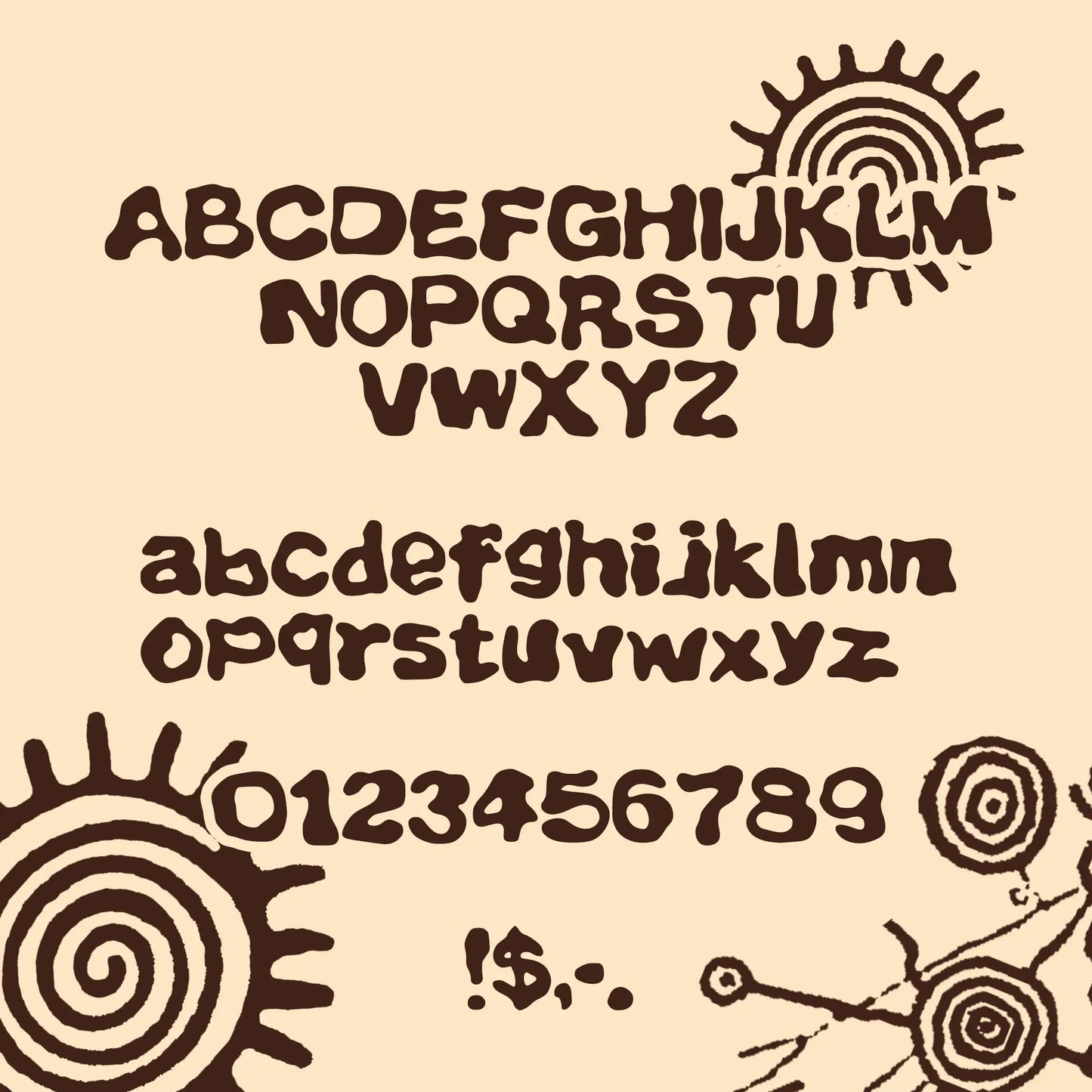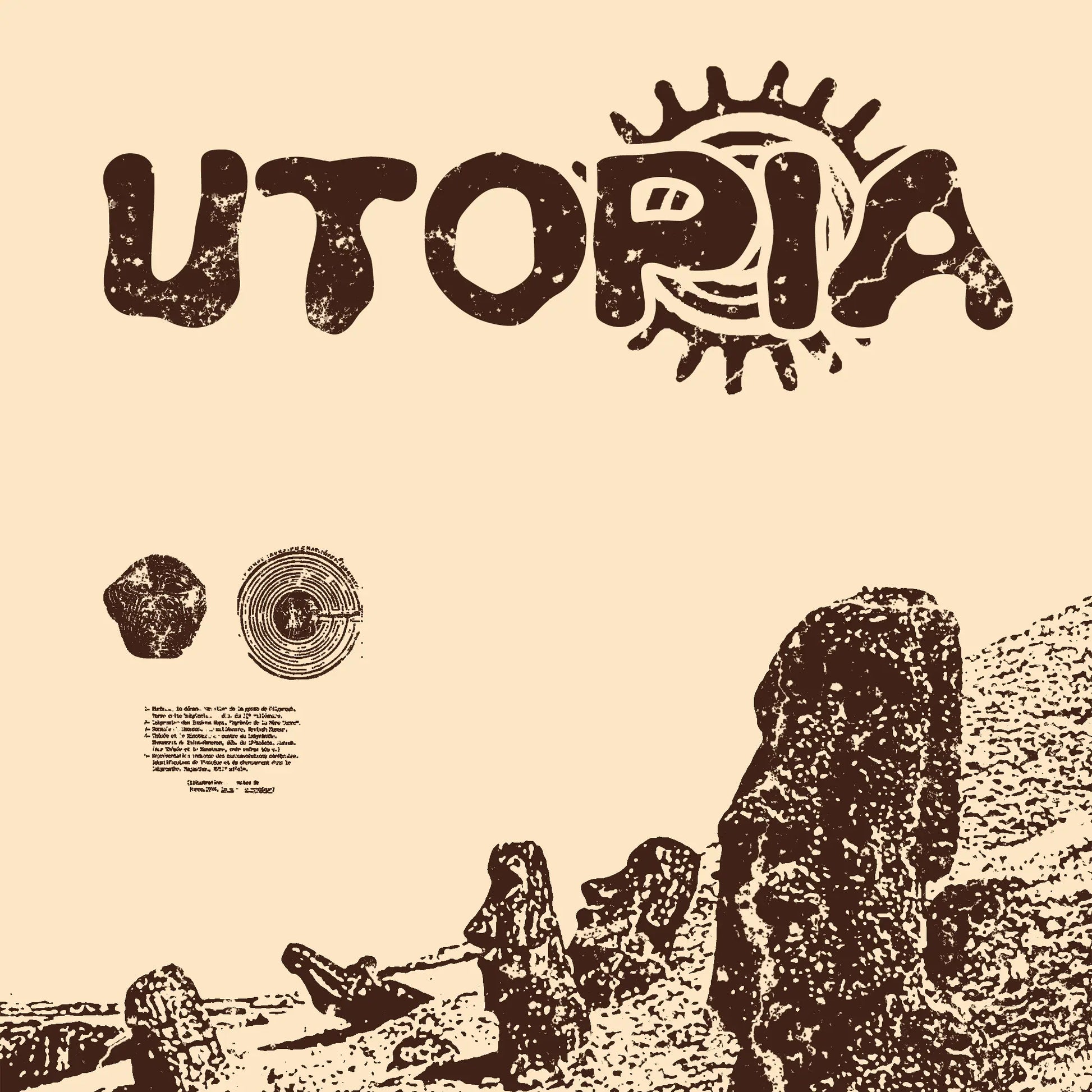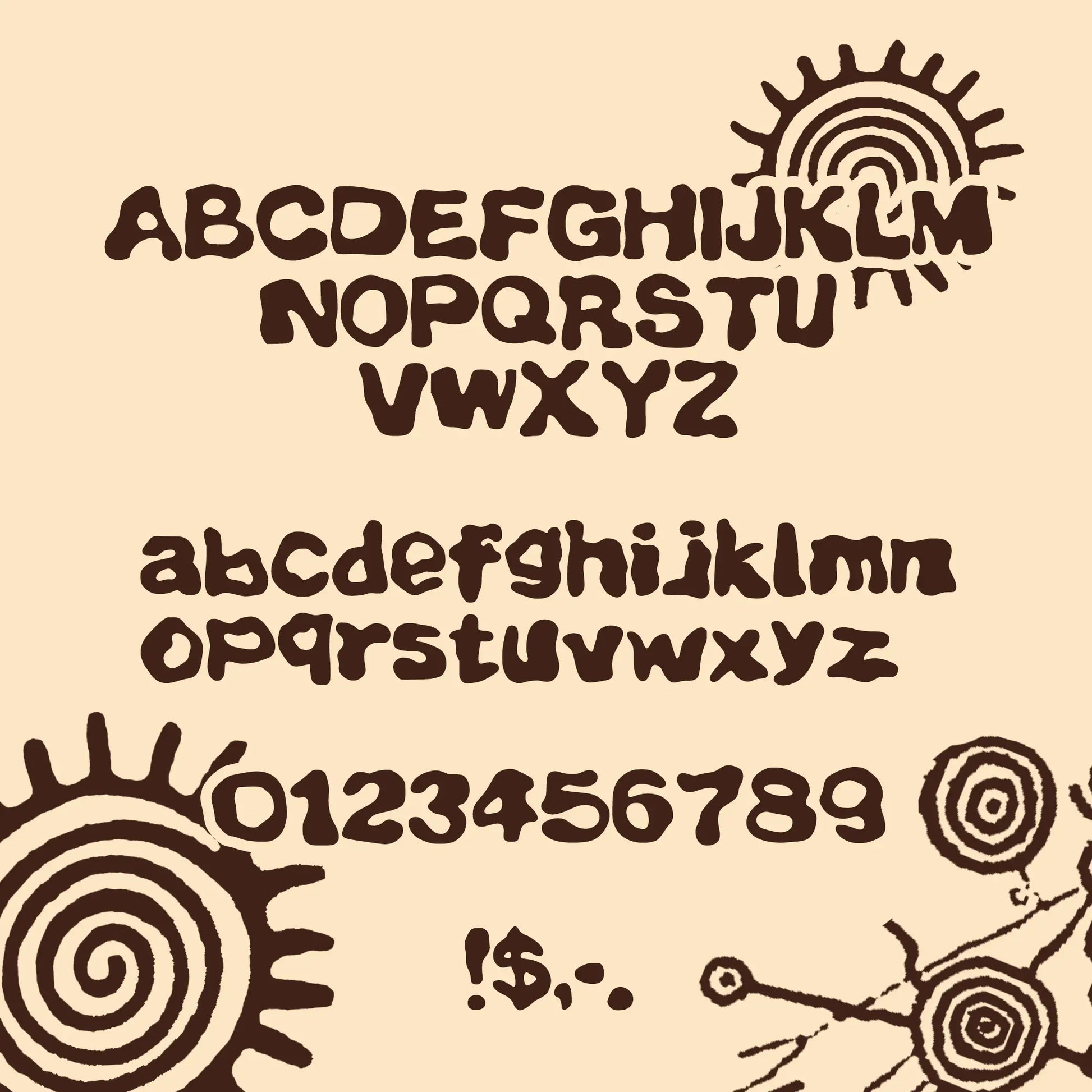
Utopia Typeface
Utopia Typeface is a premium display font designed for clothing brands, streetwear labels, and graphic designers who want a bold, editorial, and high-fashion typographic presence.
- Full character set: A-Z, a-z, 0-9 + basic symbols
Perfect for: clothing brand logos, streetwear labels, editorial graphics, social media content, and apparel design.